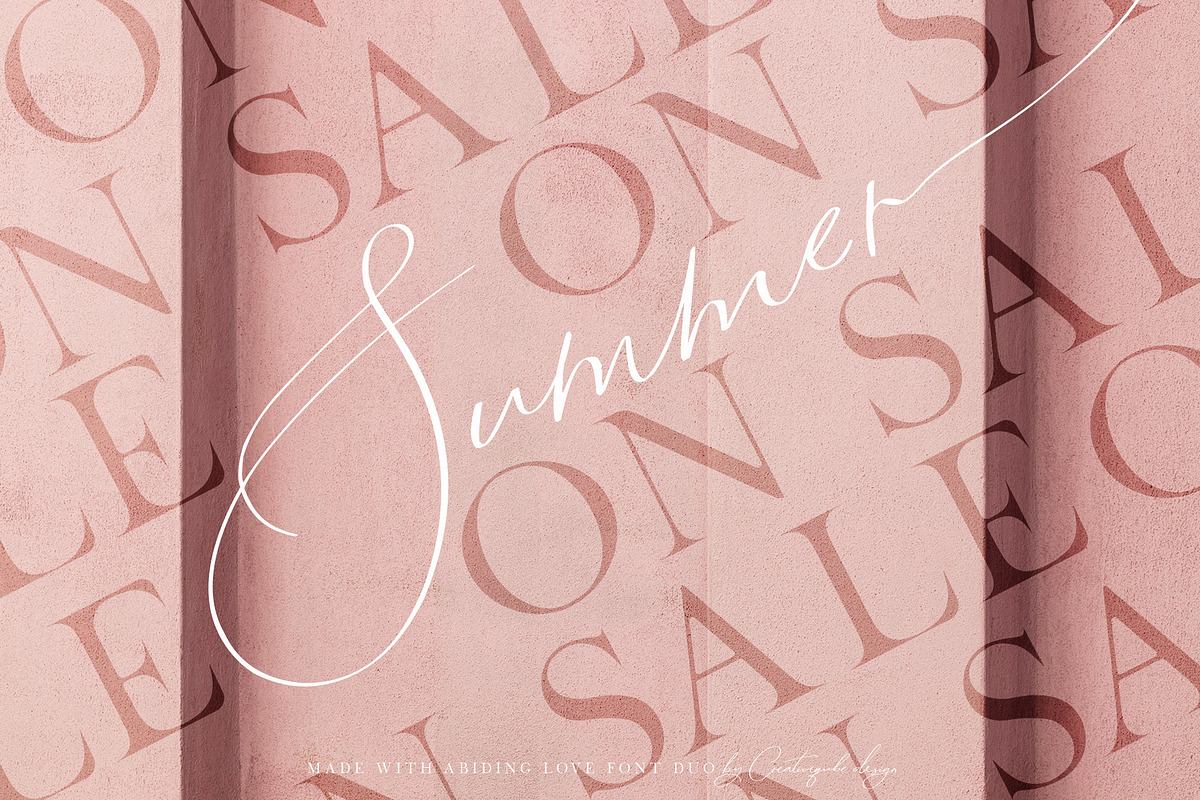
Abiding Love Collection Fonts Free Download is a romantic and versatile font bundle designed to bring warmth and elegance to your creative projects. Featuring a mix of script and serif styles, it’s perfect for wedding designs, branding, social media graphics, and heartfelt stationery. Please note that you must purchase this font for commercial use, but it is available as a free download for testing purposes. Add charm and emotional depth to your typography with Abiding Love Collection Fonts Free Download, and create beautifully expressive designs that speak from the heart.